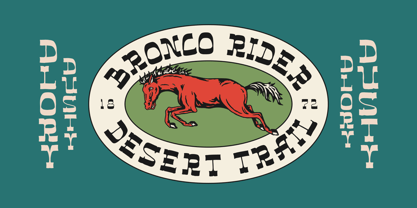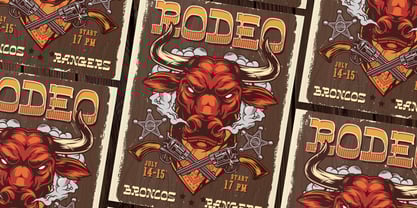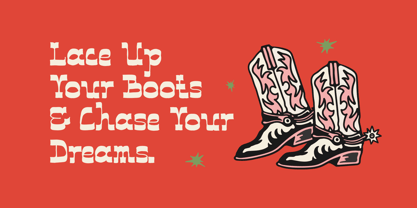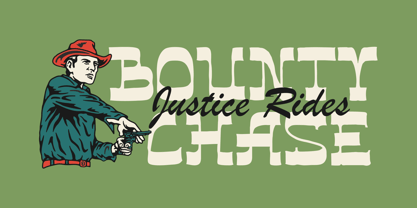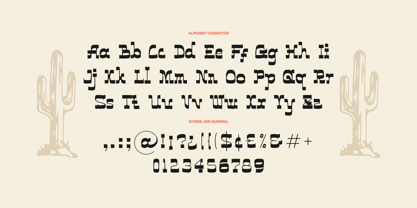
Bold Bottom
by Imoodev
The Bold Bottom Font Family was designed by Aulia Savira Putri and published by Imoodev. Bold Bottom contains 1 styles. More about this family
Bold Bottom western serif typeface with a rugged, distressed texture that gives it a worn-out, vintage feel. It features slab-serif letterforms with blocky, sturdy shapes and decorative 'cut-out', giving it a vintage and adventurous feel. Ideal for evoking the old-fashioned cowboy era or the classic vintage vibes era. This font embodies the perfect blend of old-school ruggedness and contemporary flair, making the each of your works for your western-inspired design needs.